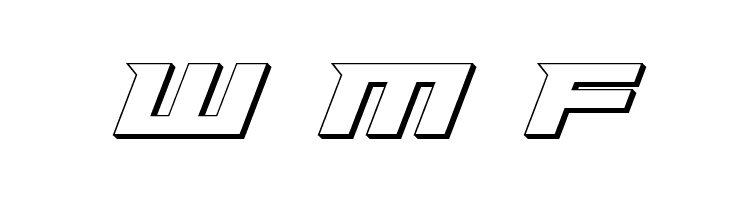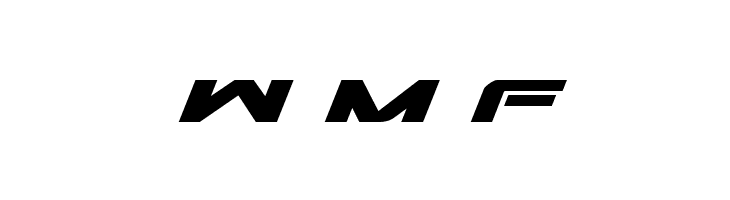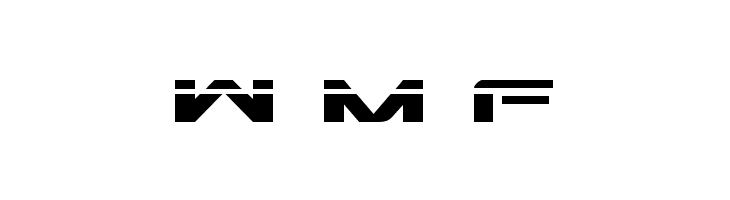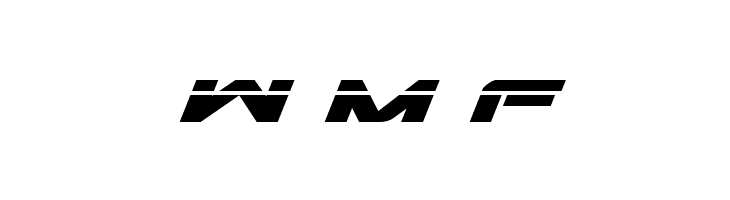
A bold, italicized font with a futuristic and dynamic style.
A bold, italicized font with a futuristic and dynamic design.
A futuristic, angular font with a bold, sci-fi aesthetic.
A futuristic, angular font with bold, geometric forms and a dynamic slant.
A futuristic, geometric font with bold, angular letterforms and a semi-condensed style.
A bold, futuristic font with semi-condensed, geometric letterforms.
A bold, italic, semi-condensed font with a modern and dynamic style.
A sleek, italicized, semi-condensed font with a modern and dynamic style.
A bold, angular font with a futuristic and dynamic style.
A bold, 3D geometric font with a futuristic and dynamic style.